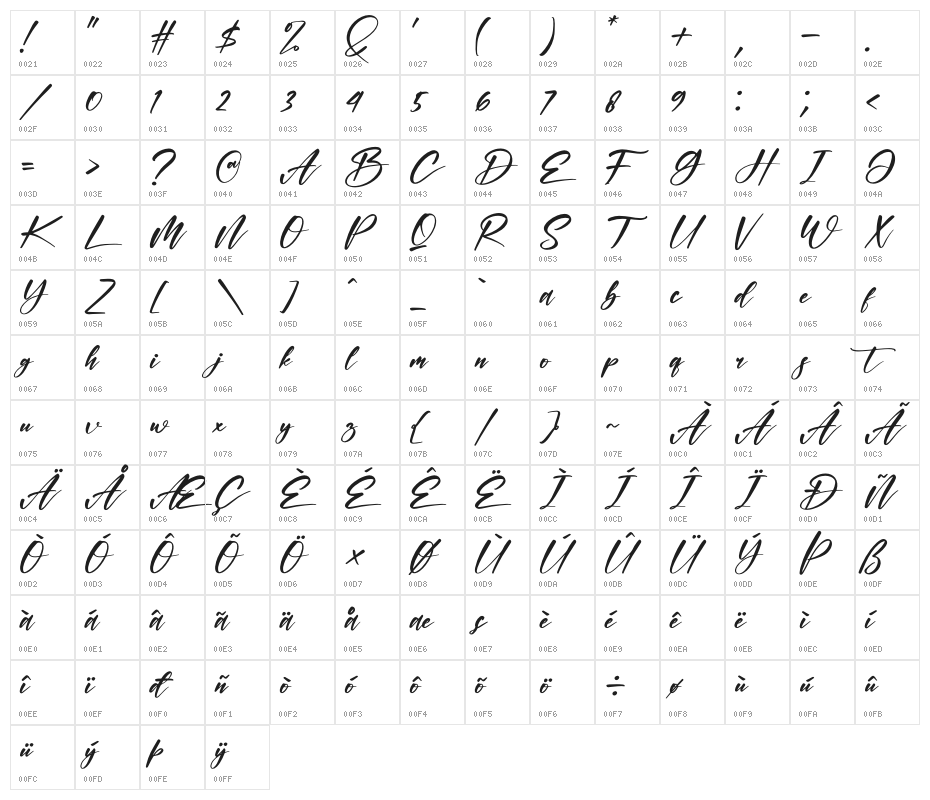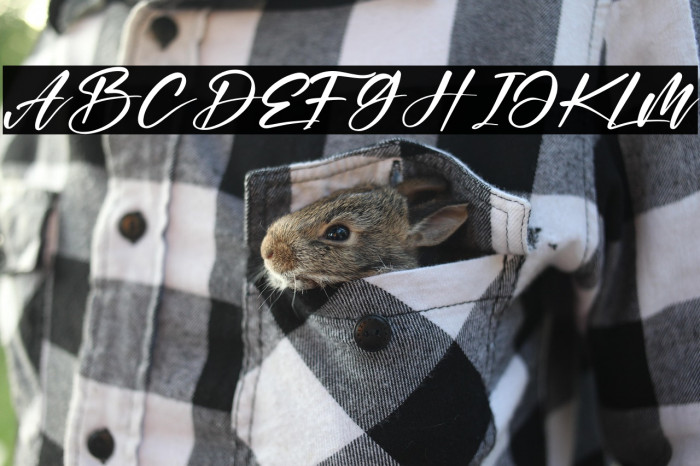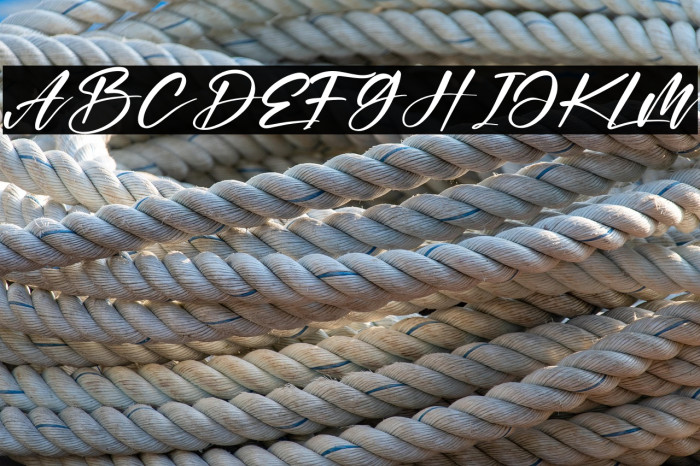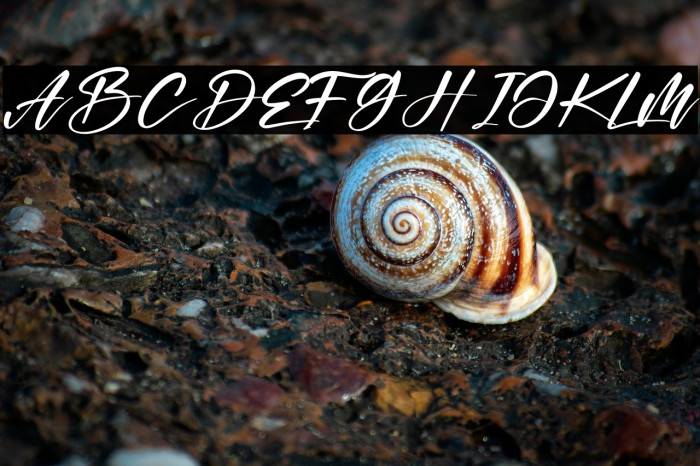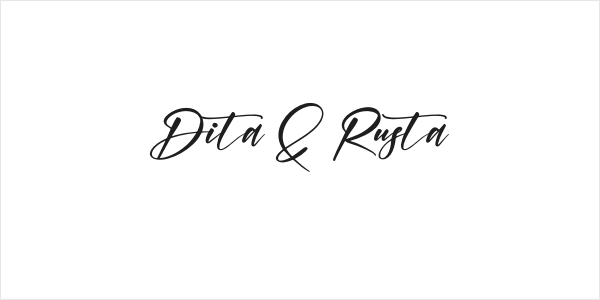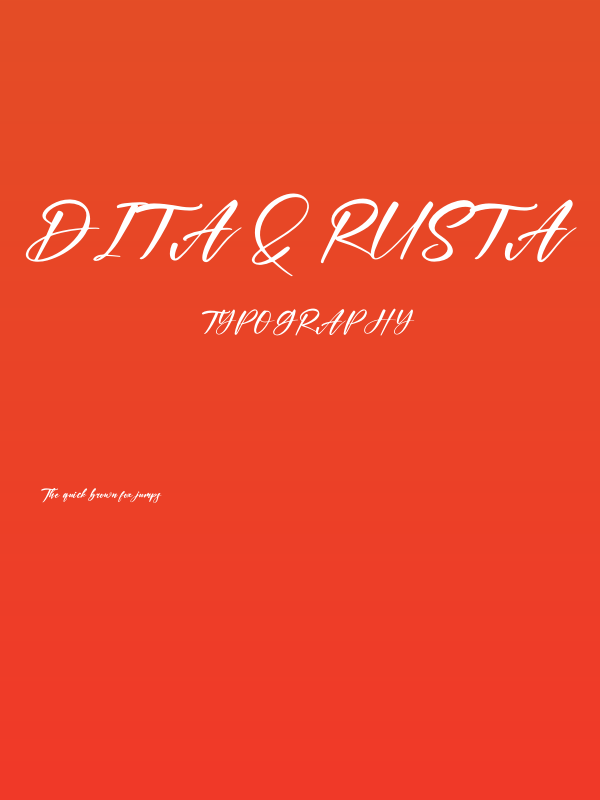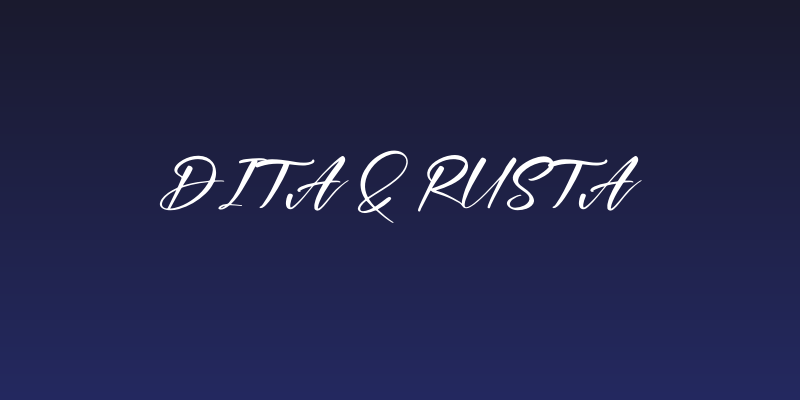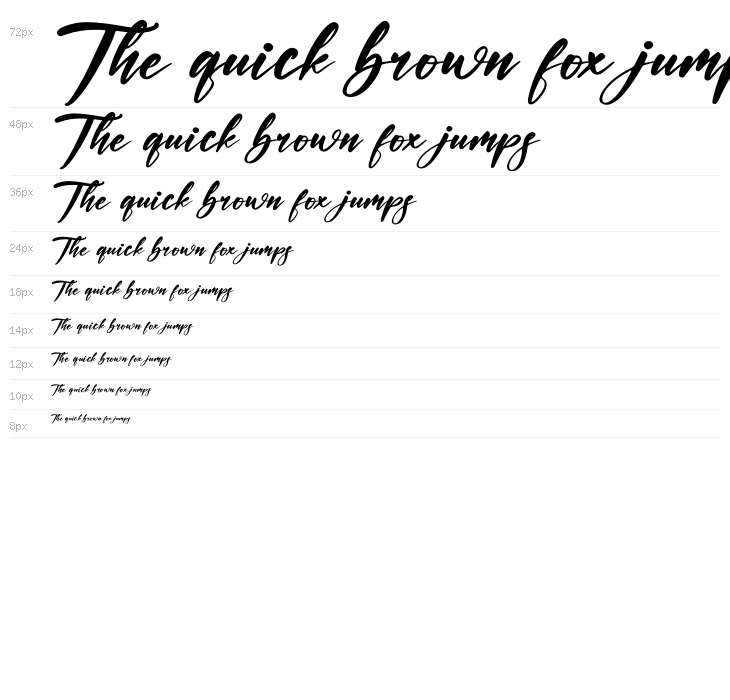
Dita & Rusta Font
Dita & Rusta Description
A flowing, expressive script font with a handwritten, brush-pen appearance. The characters feature varying stroke thickness, dynamic curves, and a casual yet elegant style. Uppercase and lowercase letters are distinct, with some decorative swashes and ligatures.
| Overall Style | Decorative, Modern, Handwritten |
| Use Case | Logos, Headlines, Invitations, Social media posts |
| Proposed Projects | Wedding invitations, branding, social media graphics, greeting cards, posters. |